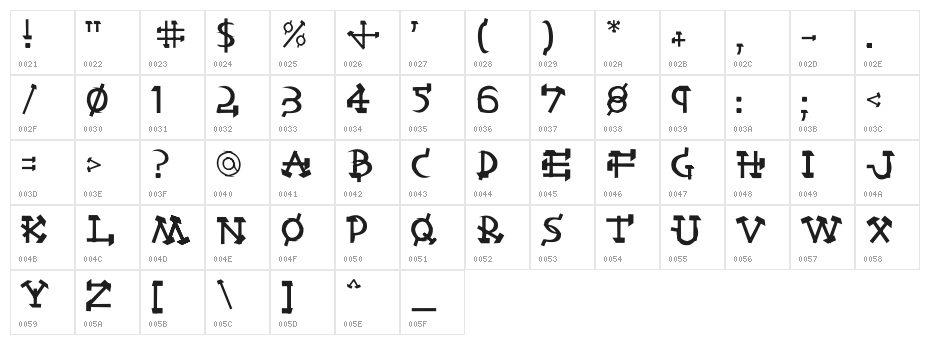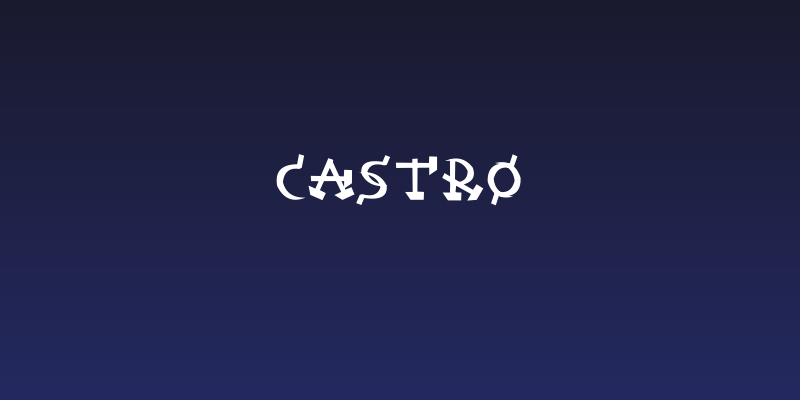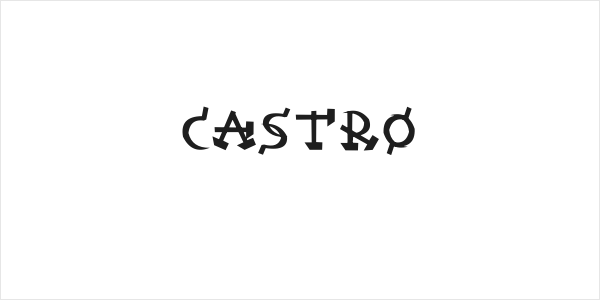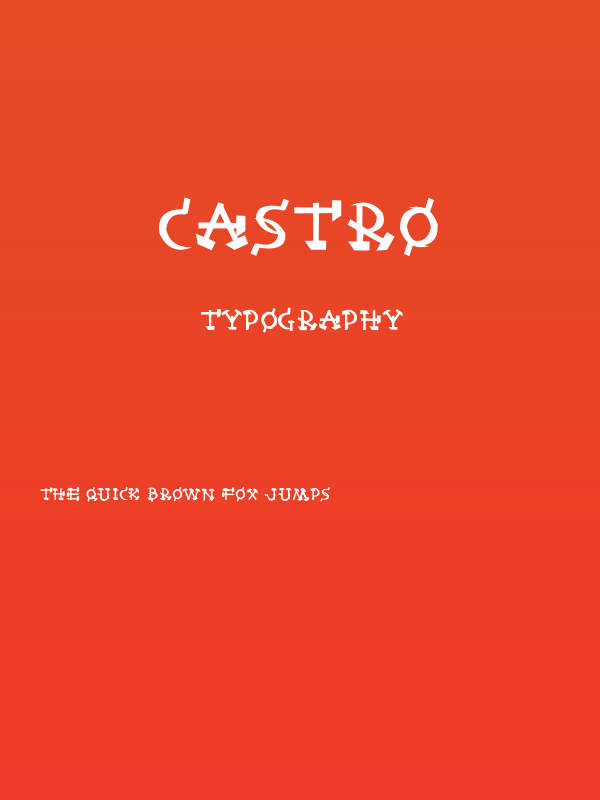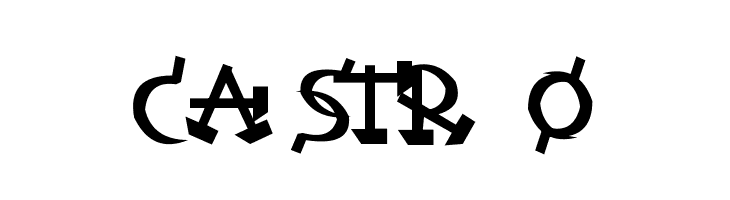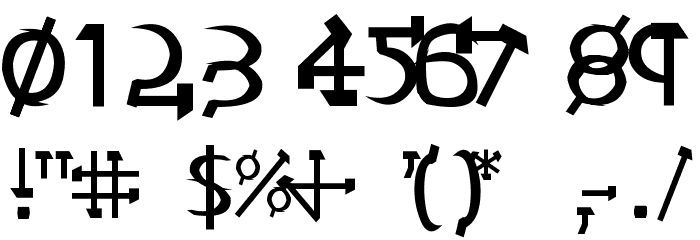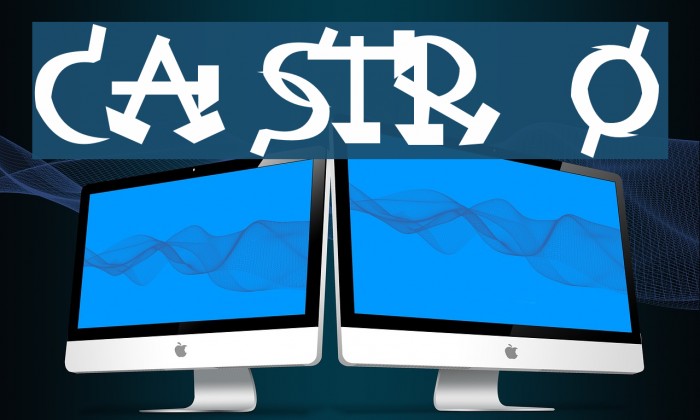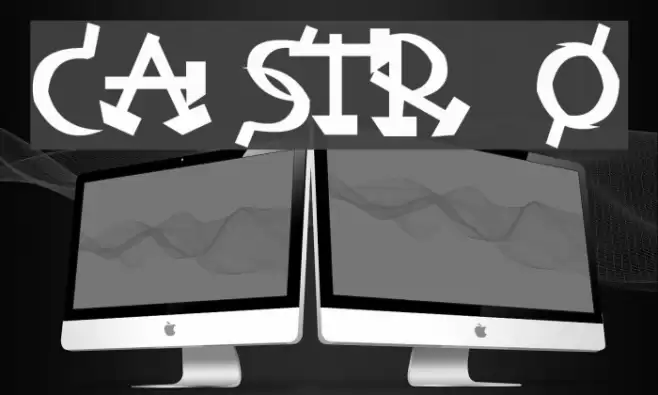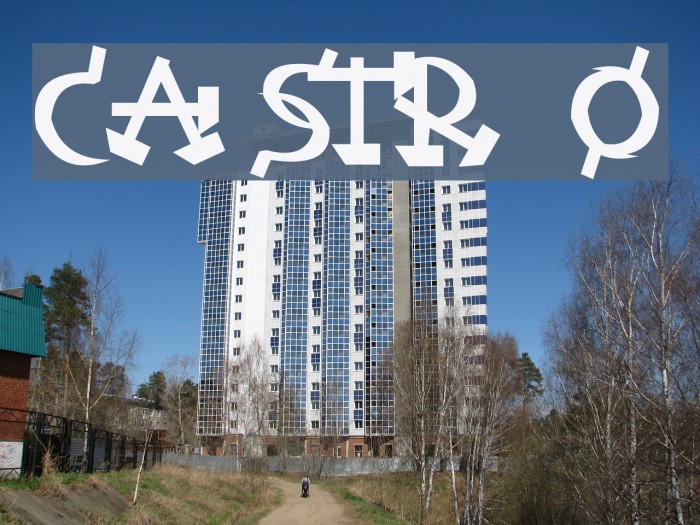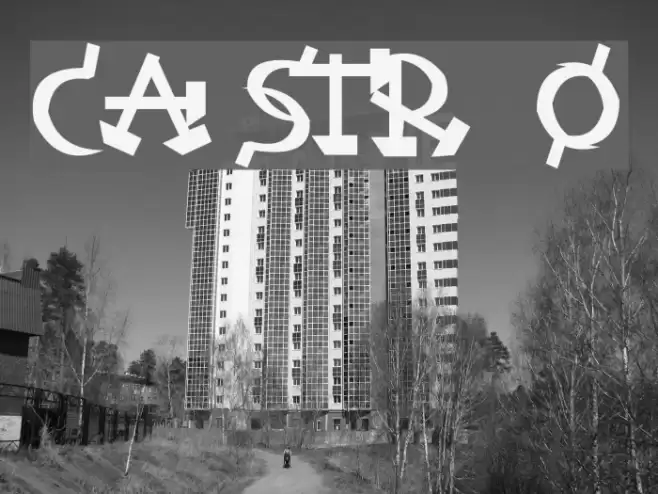
Castro Font
Castro Description
This font exhibits a highly decorative and abstract style, characterized by its bold and fragmented letterforms. Each character is uniquely designed with overlapping and intersecting lines, creating a sense of movement and complexity. The uppercase and lowercase letters maintain a consistent visual theme, while the numerals and special characters follow suit with similar design elements. The font's overall appearance is striking and unconventional, making it stand out in any design context. Its artistic flair and bold presence make it suitable for projects that require a strong visual impact.
| Proposed Projects | Ideal for artistic posters, album covers, modern art installations, and branding that requires a unique and bold statement. |